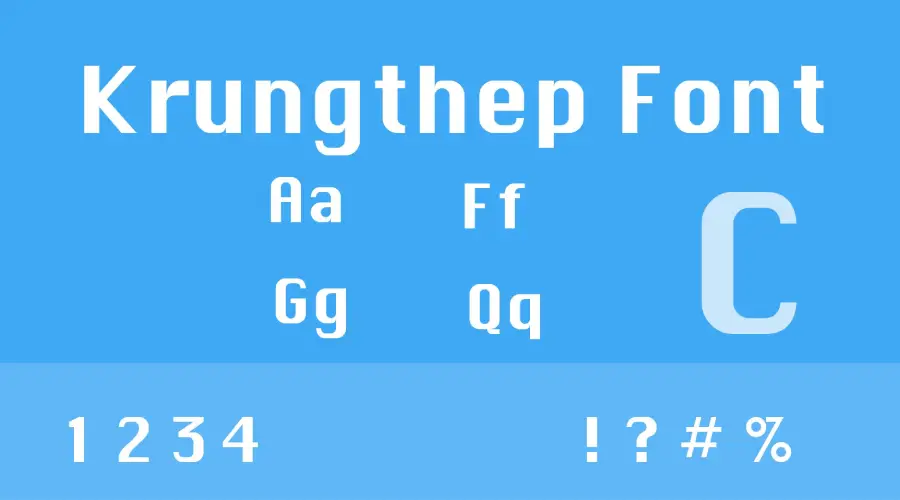
Krungthep Font
Krungthep font is a sans-serif typeface designed for Apple computers by a Thai graphic designer and typographer. The name Krungthep means “city of angels” in Thai and is also the official name of Bangkok, Thailand’s capital.
It was one of the first fonts to introduce Thai characters to the international market, and it quickly gained popularity among designers and users. It has high legibility and readability thanks to its balanced proportions, precise curves, and open counters.
It has a sleek and elegant look and is suitable for various designs. It is used in multiple books, periodicals, advertising, logos, banners, titles, etc. So, check it out on our font generator now and download it for free!
Your next design project should include the Krungthep font. It is a stylish and modern typeface that suits any theme or mood. It features clean and geometric shapes inspired by Bangkok’s contemporary architecture and urban lifestyle. You can check it out on our font generator now and download this font for free!